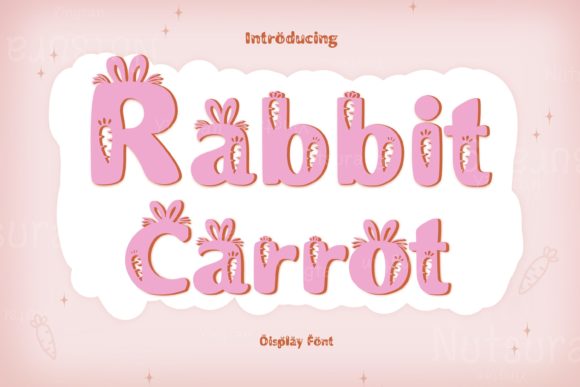
**Rabbis Carrot Font: The Ultimate Creative Companion for Your Artistic Journey**
Unleash your artistic flair and embark on a journey of captivating creativity with the extraordinary Rabbis Carrot Font. Nurture your imagination amidst vibrant hues and playful shapes, designed to infuse your designs with a distinctive touch of whimsy.
**Step into a Whimsical World of Design with Rabbis Carrot Font**
Let your creative spirit soar with the Rabbis Carrot Font, a decorative masterpiece that transforms ordinary text into captivating works of art. Its intricate characters burst with personality, adding a dash of magic to logos, branding, social media posts, and crafty DIY projects.
**Nurture Your Creativity with an Array of Artistic Possibilities**
This remarkable font is a canvas for your creative vision. Its captivating curves and unique shapes breathe life into your designs, evoking a sense of whimsy and enchantment. Whether you're a seasoned designer or just starting your creative journey, Rabbis Carrot Font is your trusty companion, ready to elevate your projects to new heights of artistry.
**Craft Enchanting Easter Designs with Rabbis Carrot Font**
Embrace the spirit of Easter and let your designs bloom with the Rabbis Carrot Font. Its playful aesthetic perfectly captures the essence of this joyous occasion, adding a touch of magic to your Easter-themed creations. From delightful logos to charming social media greetings, Rabbis Carrot Font transforms your designs into works of art that spread joy and cheer.
**Ignite Your DIY Passion with Rabbis Carrot Font**
Unleash your inner crafter and let your DIY projects shine with the Rabbis Carrot Font. Its whimsical characters add a touch of whimsy to handmade cards, personalized gifts, and home décor items. Embark on a crafty adventure, allowing your creativity to flourish as you bring your unique designs to life.
**Discover Endless Creative Possibilities with Rabbis Carrot Font**
The Rabbis Carrot Font is more than just a font; it's an open door to a world of endless creative possibilities. Its versatility knows no bounds, making it the perfect choice for a wide range of design projects. Let your imagination run wild as you explore the limitless potential of this remarkable font.